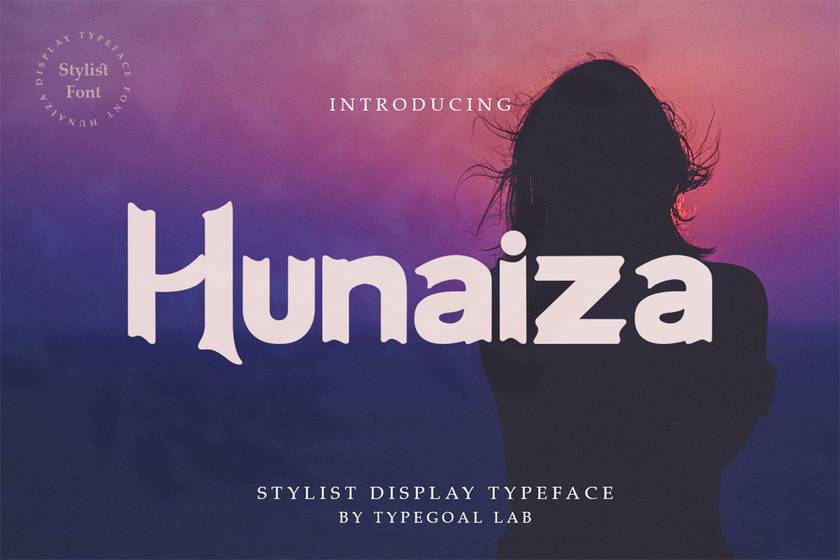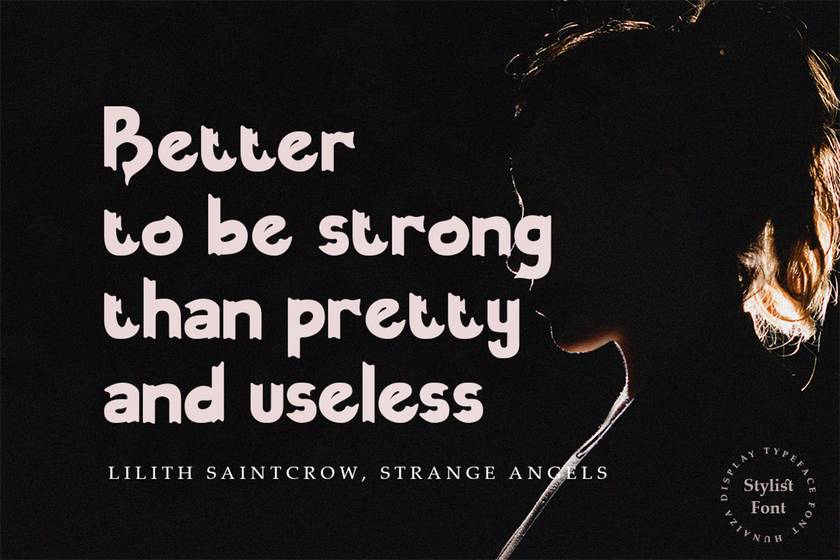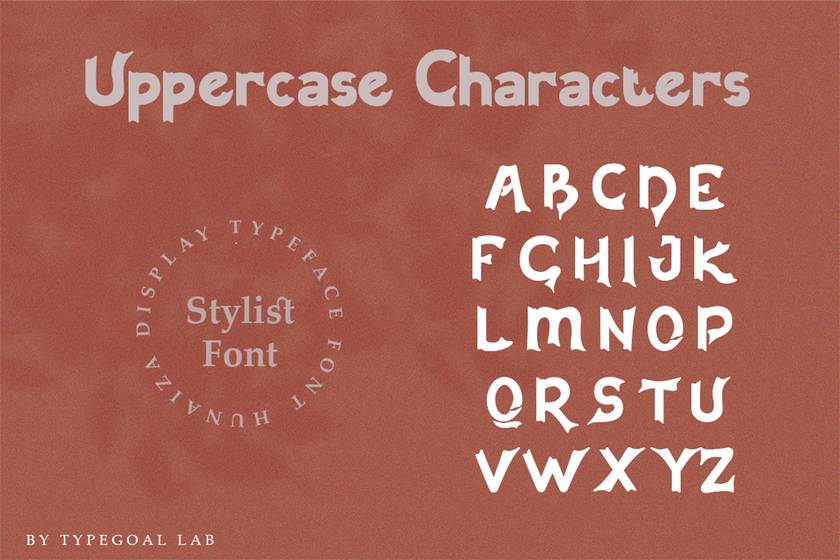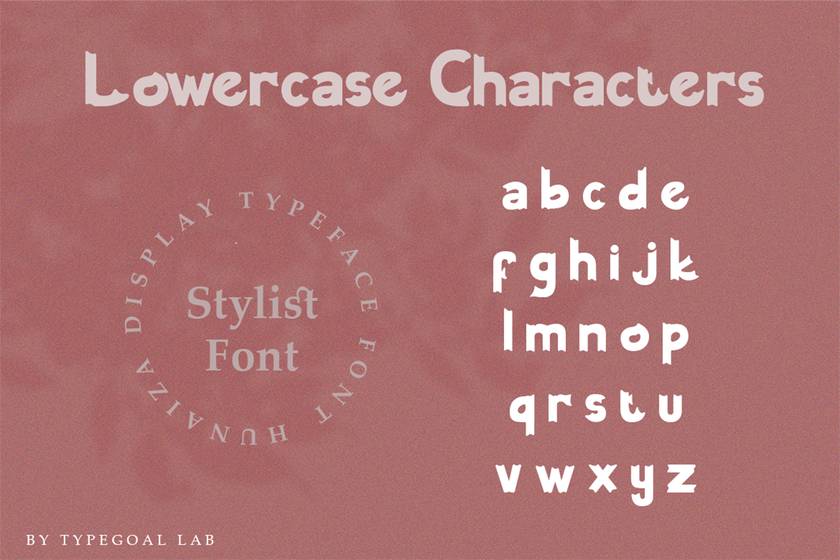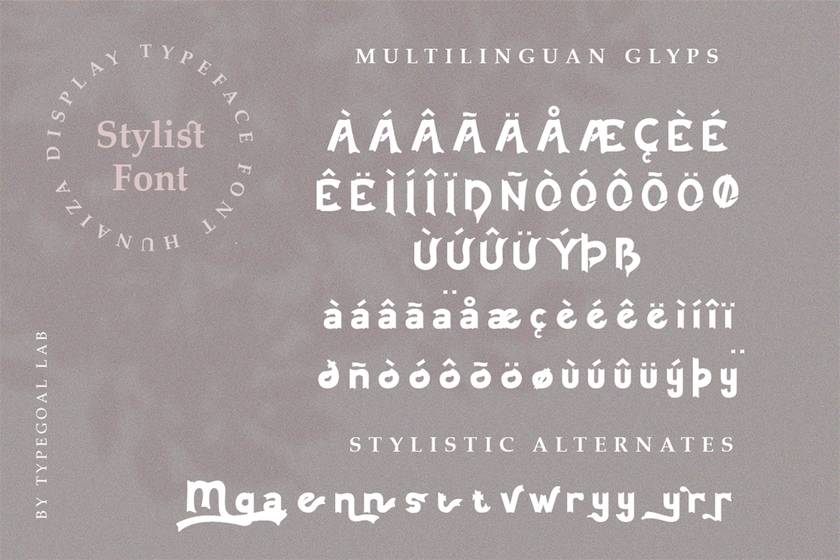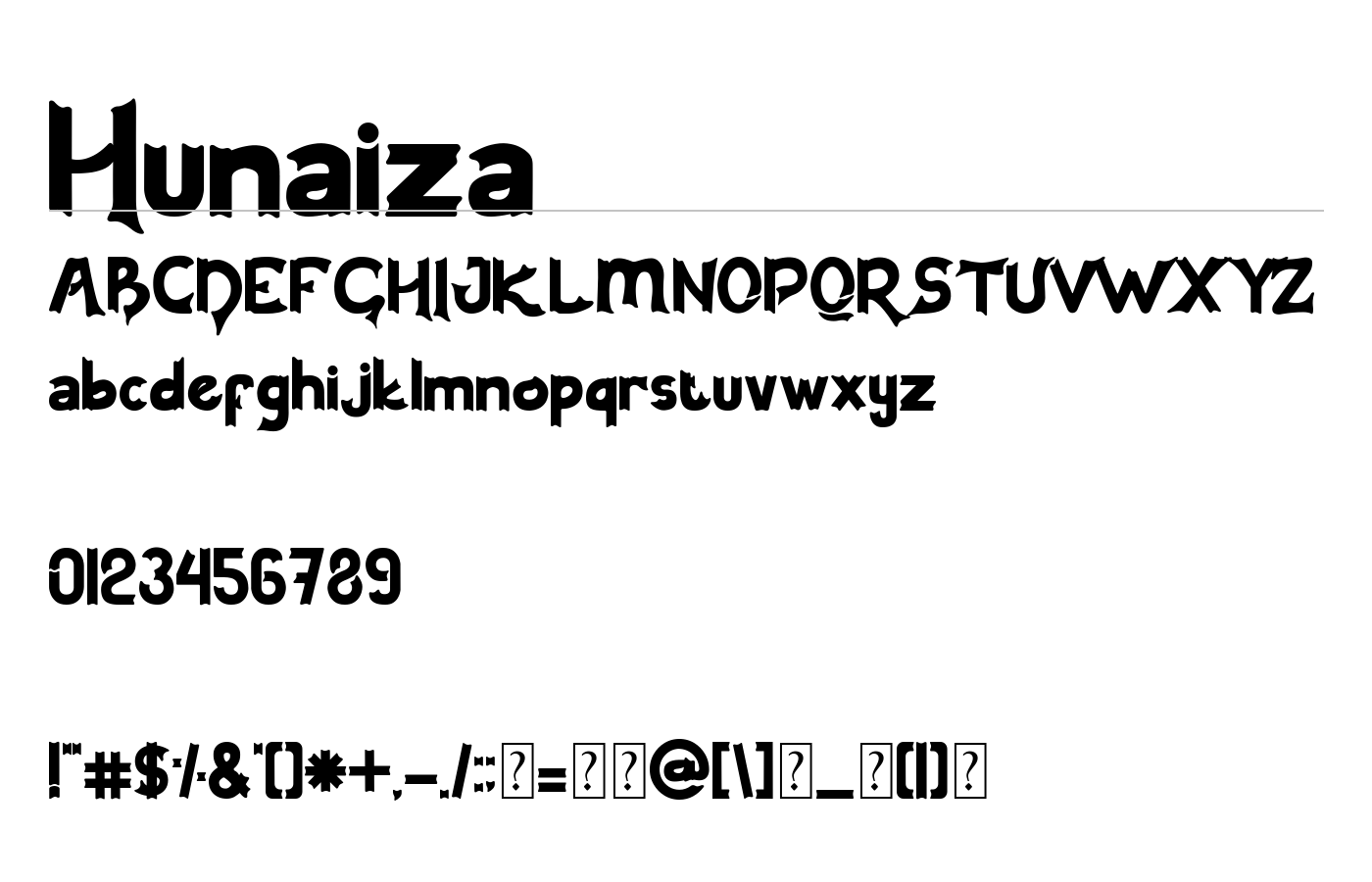
Hunaiza is a bold, decorative serif font with sharp, stylized edges that give it a dramatic and slightly gothic flair. Its sturdy weight and unique letter shapes make it ideal for eye-catching headlines, logos, and designs that want to convey a strong, artistic personality, perfect for creative or themed branding. This font stands out best in display uses where its distinctive character can shine.
Hunaiza Font
About Hunaiza Font
| Font family | Hunaiza Font |
| Release date | 2020-06-05 |
| Designer | Typegoals labs |